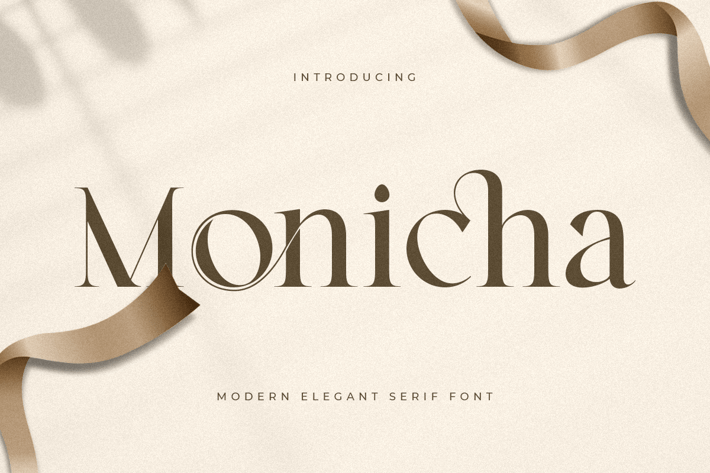
Monica - Modern Elegant Serif Font
A serif font that we created special for elegant branding needs, with extra ligature and alternates in unique shape will be ready to add value of your brand. It so nice to leverage designer or product owner that need solutions to make their design look more classy and modern. And specially for Monicha font, We prepared any ligatures, and any alternate characters to help you create unlimited variations for your creative needs.
Monicha serif font ready with:
Any options to get creative variations (combination of Alternate and Ligatures)
Preview as a inspirations that you can do with Monicha font
Ready with Lowercase and Uppercase characters